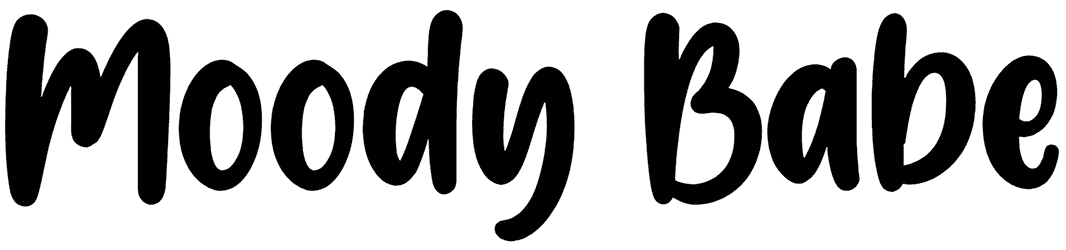
Moody Babe Font
Let’s bring your creative ideas into the world with an adorable, bold cartoon font, Moody Babe. It will help you to give off a friendly, lovable image of your work to your audience.
This font is perfectly fit for cartoon titles, storybook covers, baby apparel, toy products, and homeware designs. So go ahead, pick it out, and make your next project instantly in the best way possible.